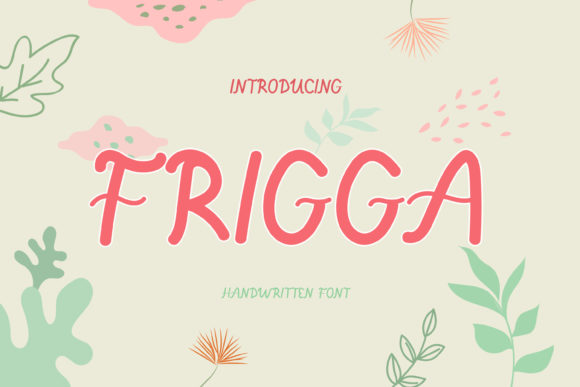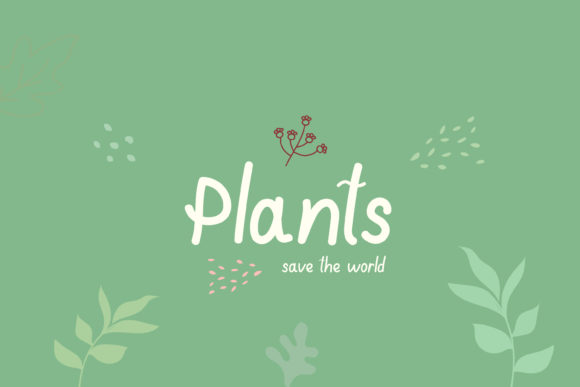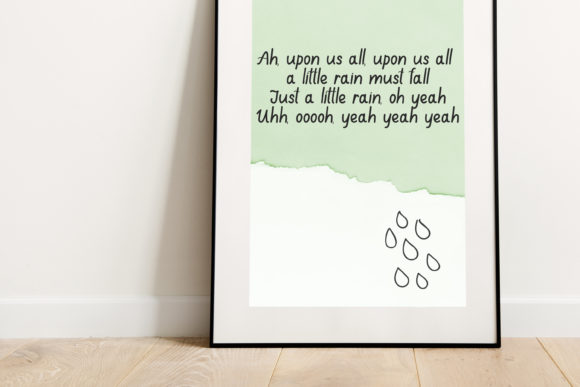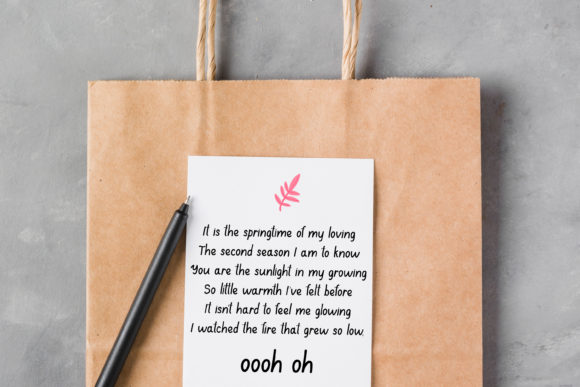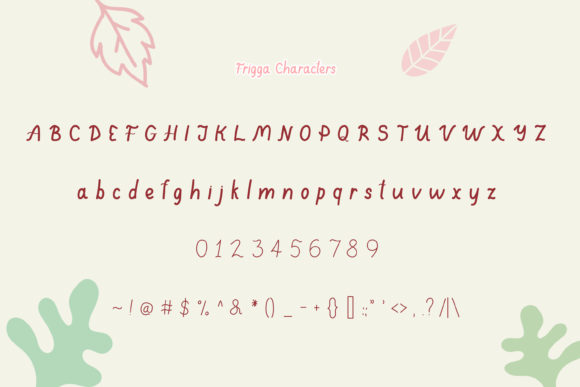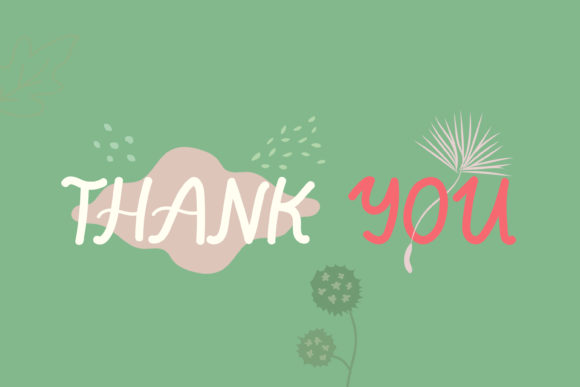
Frigga Font
About Frigga Font
Frigga is a cute & quirky handwritten font. Get inspired by its incredibly happy feel and use it to turn any design project into a standout!